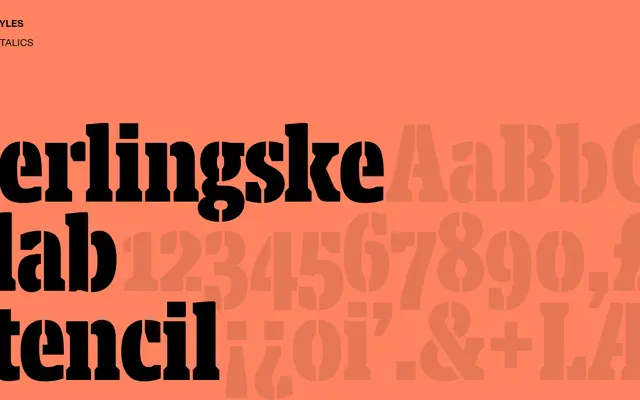
Berlingske Slab Stencil
Berlingske Slab Stencil specimen from Playtype
A stencil cut of the Berlingske Slab family, carrying the slab serif's sturdy proportions into interrupted, display-weight letterforms.
Derived from the Berlingske Slab family, this stencil variant breaks the strokes at counter junctions to produce the characteristic gaps of the stencil form while retaining the weight and structure of the parent slab. The interrupted letterforms suit poster, editorial headline and campaign work where a raw, mechanical quality is wanted. Very limited page copy makes it difficult to confirm the full weight range or language coverage.
A stencil variant of a slab serif, the cut-out counters and interrupted strokes place it firmly in the display category with a stencil subcategory rooted in slab proportions.